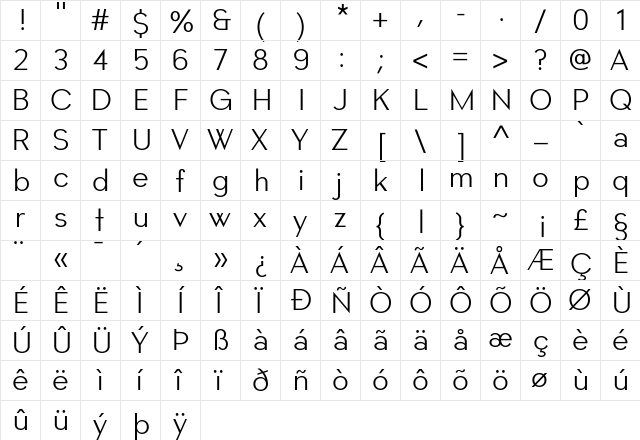
Montblanc Regular
| Foundry | GOICHA |
| Designer | GOICHA |
Design Context for Montblanc Typeface
Montblanc offers clean, dependable letterforms without strong stylistic allegiance, making it a practical choice for designers who need flexibility.